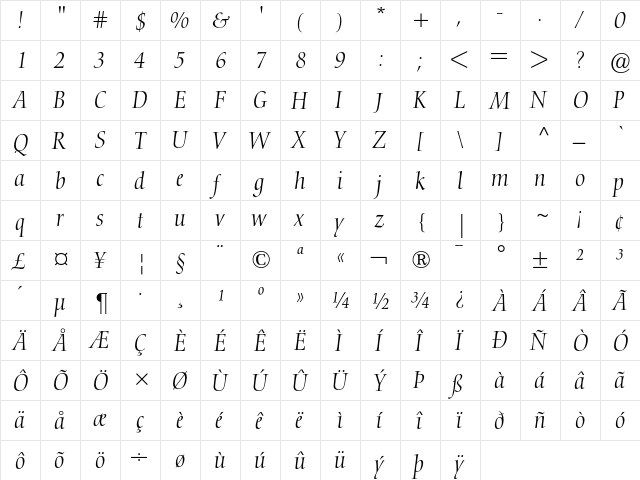
Nofret Light Italic Font Preview
Design Context for Nofret Typeface
Nofret offers clean, dependable letterforms without strong stylistic allegiance, making it a practical choice for designers who need flexibility. Its italic angle brings a sense of urgency and motion to the letterforms. The delicate stroke weight brings airiness and refinement to layouts.
Pro Tip: Try Nofret for annotation and caption copy alongside an upright companion — the contrast in angle creates a dynamic but ordered typographic system.